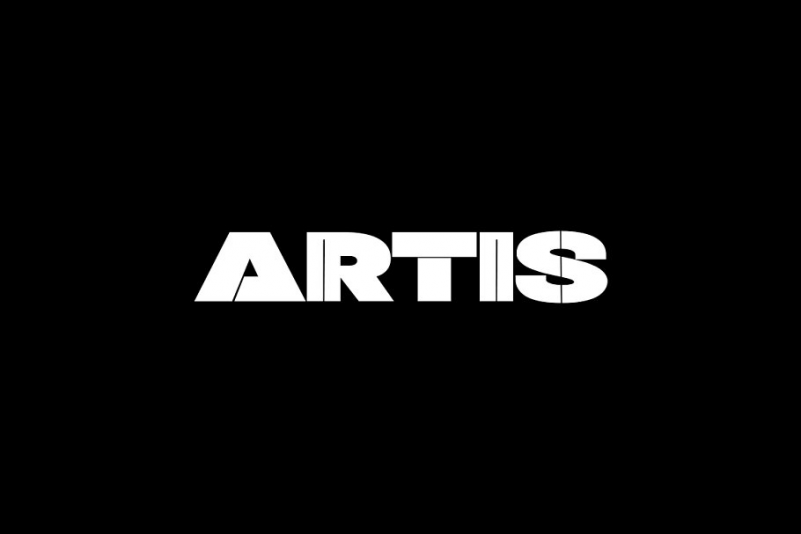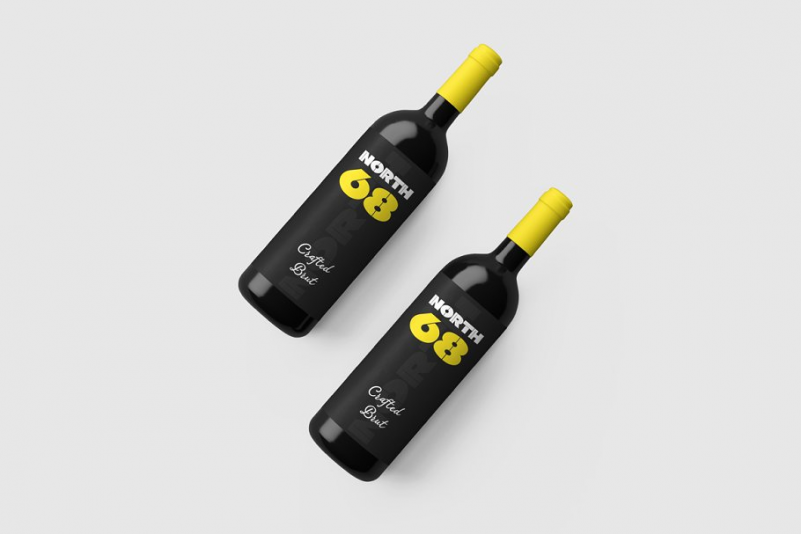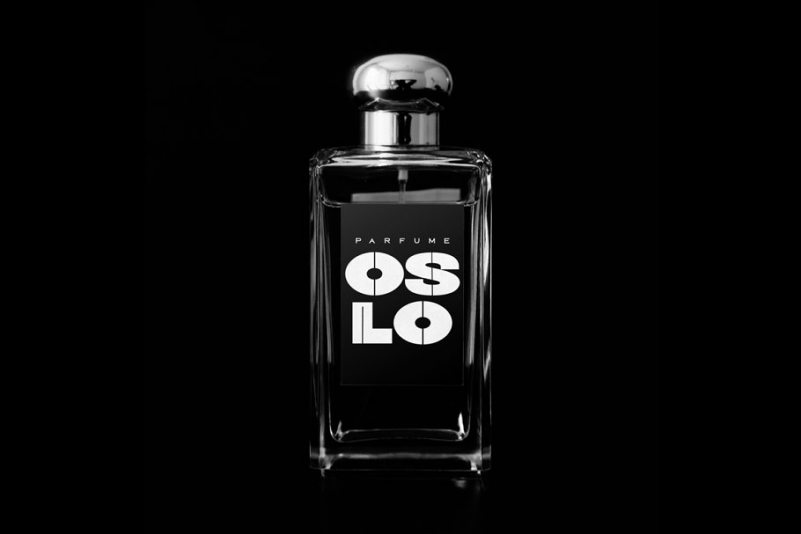
ARTIS Font
ARTIS, a unique display typeface made with a touch of it’s own. This typeface is perfect for headlines, big text, branding, logotypes & display usage. Also suitable for creating outstanding logos, promotional content and marketing graphics that can really grab attention from your visitors. Please see the examples shown above to get an idea about the capability of this typeface.